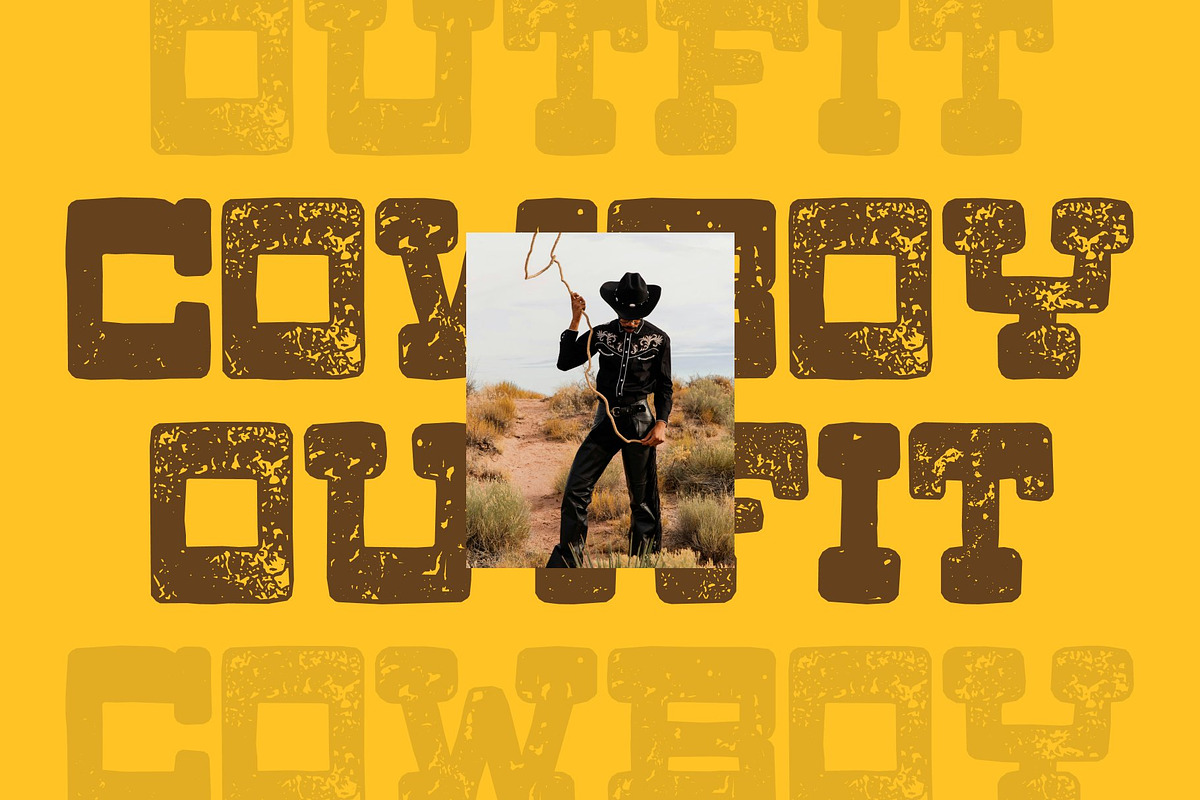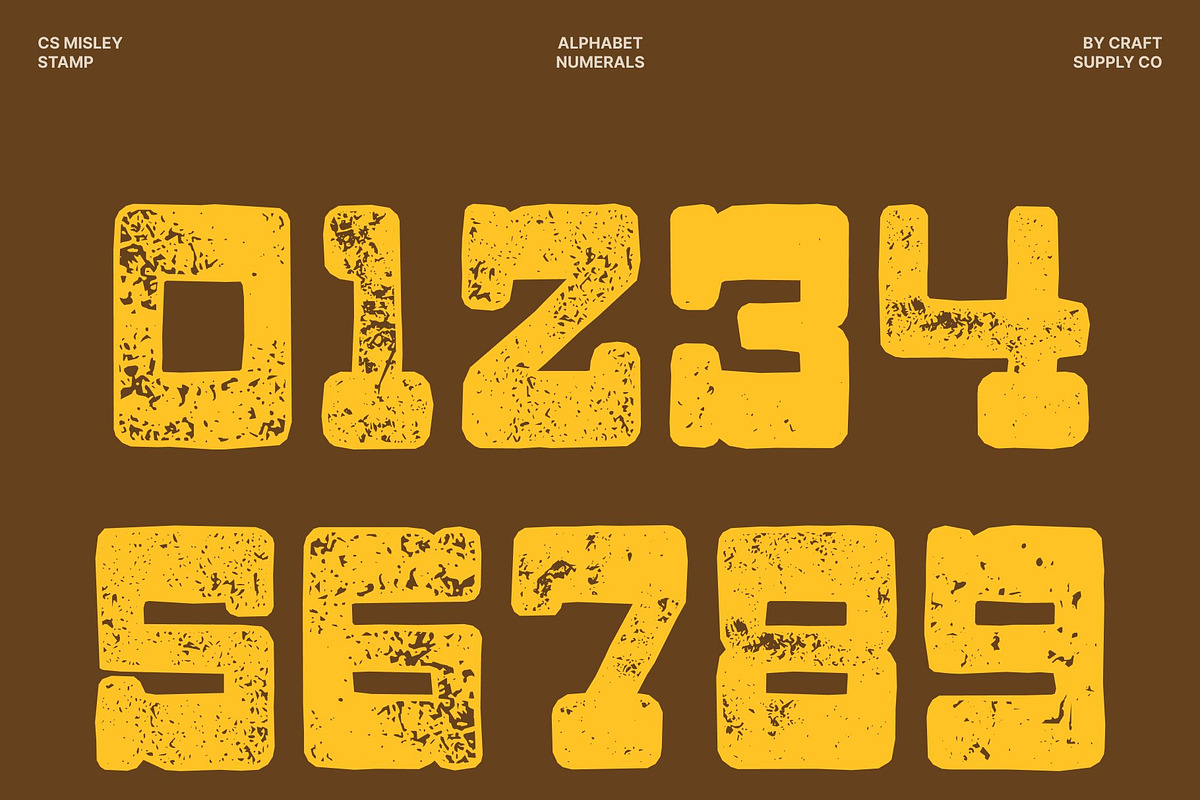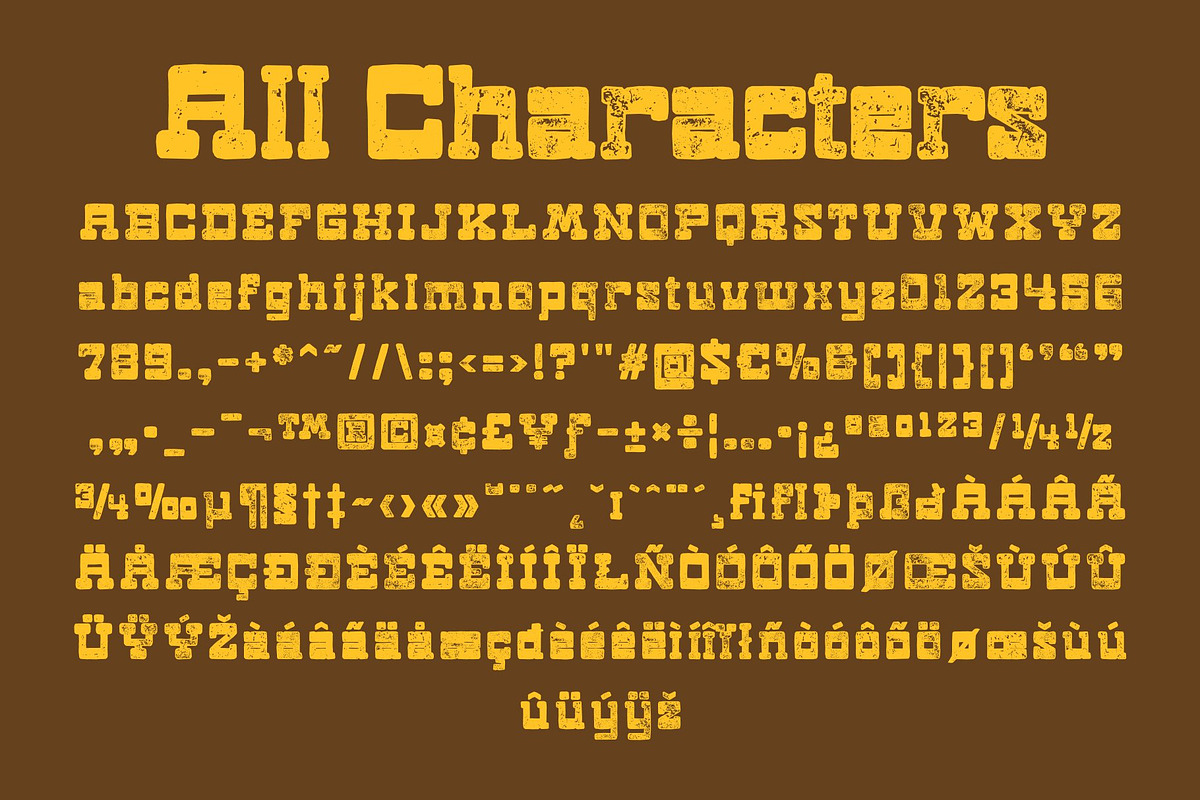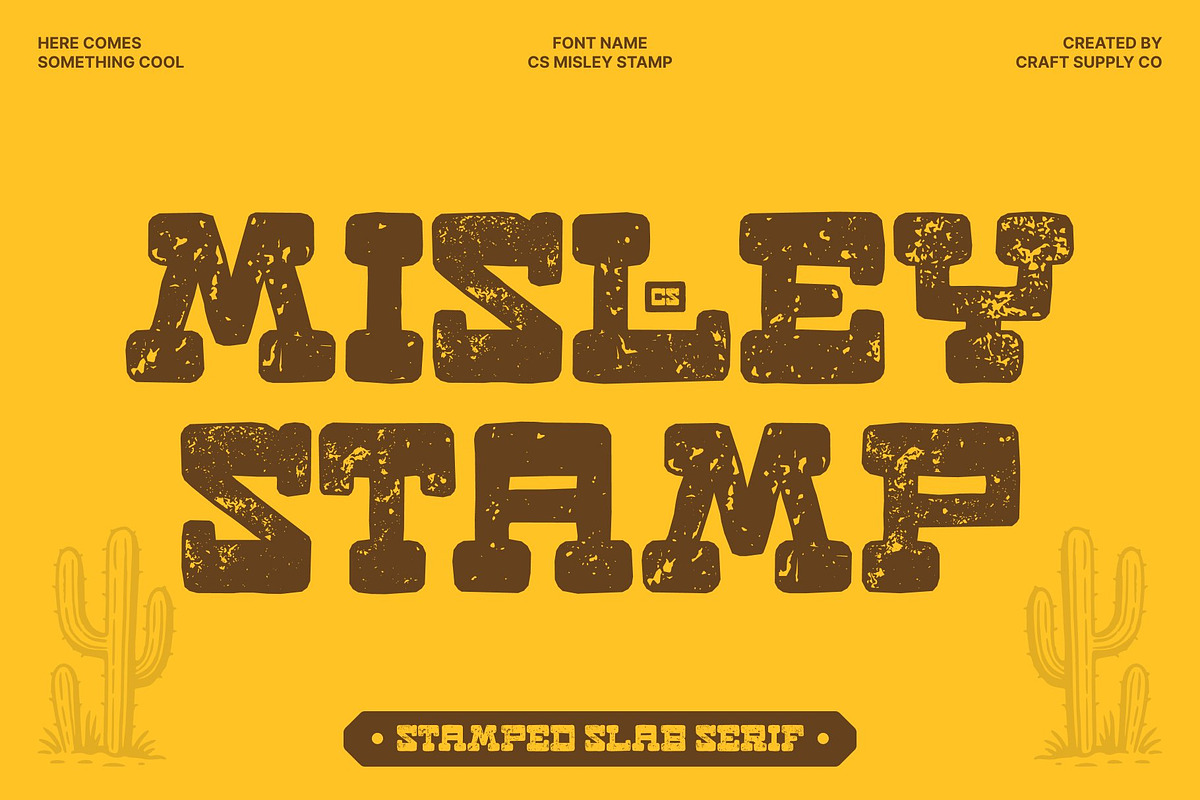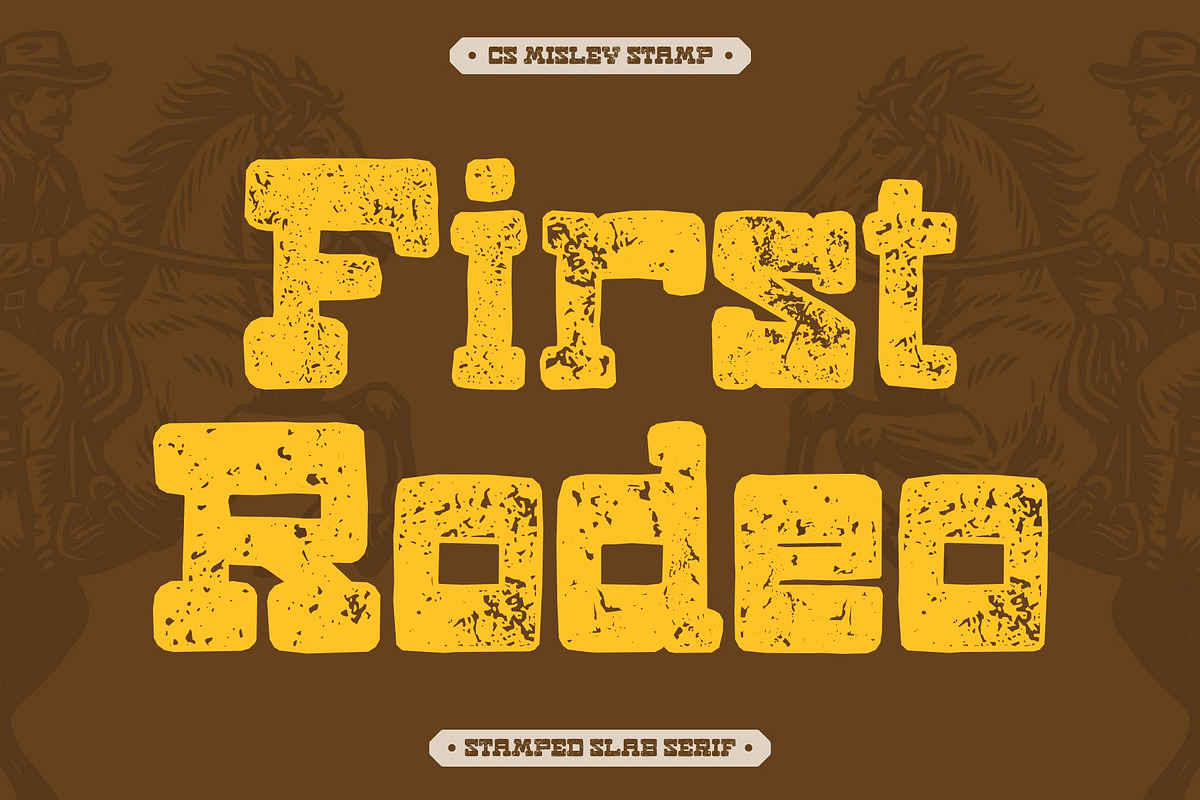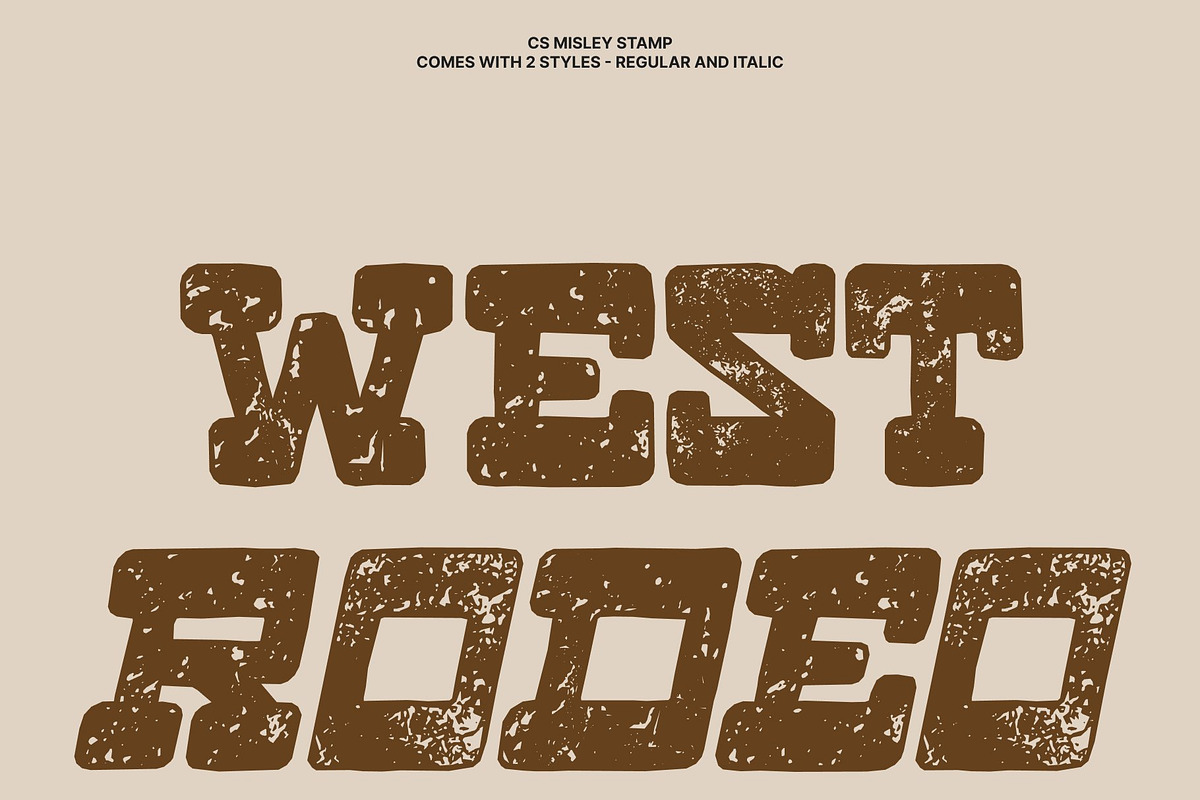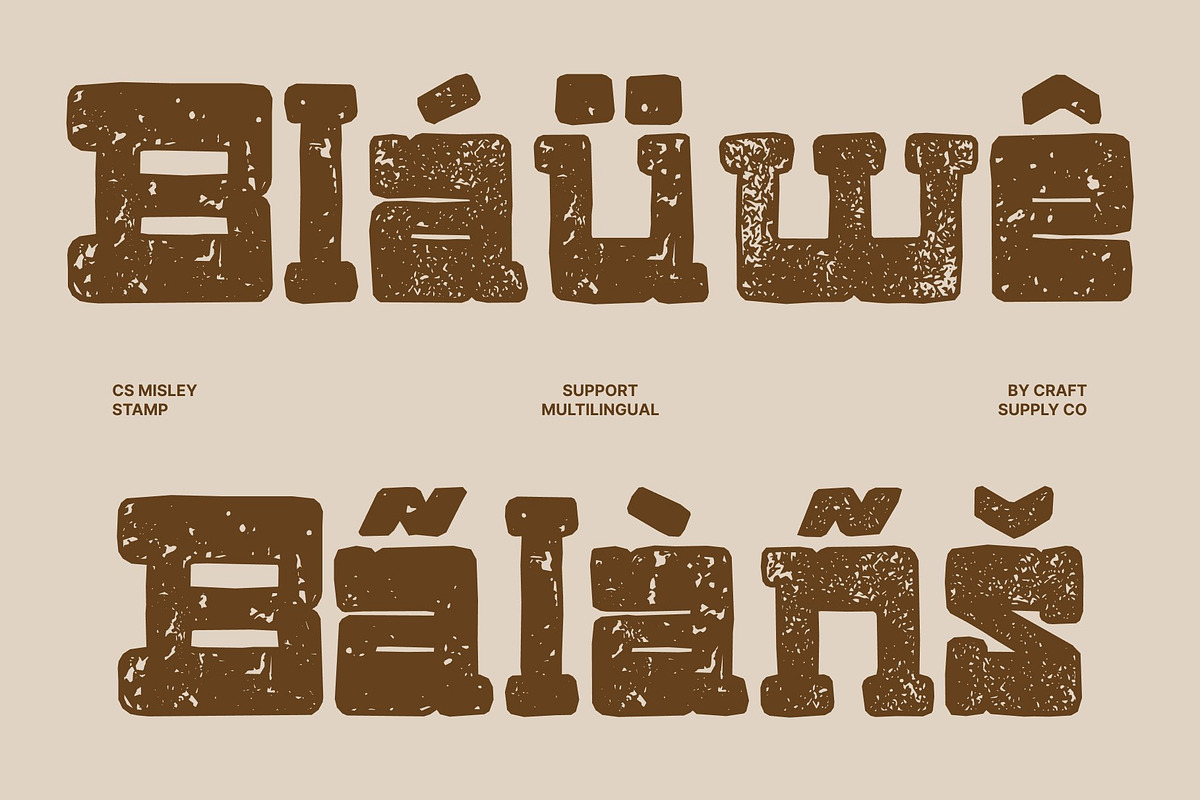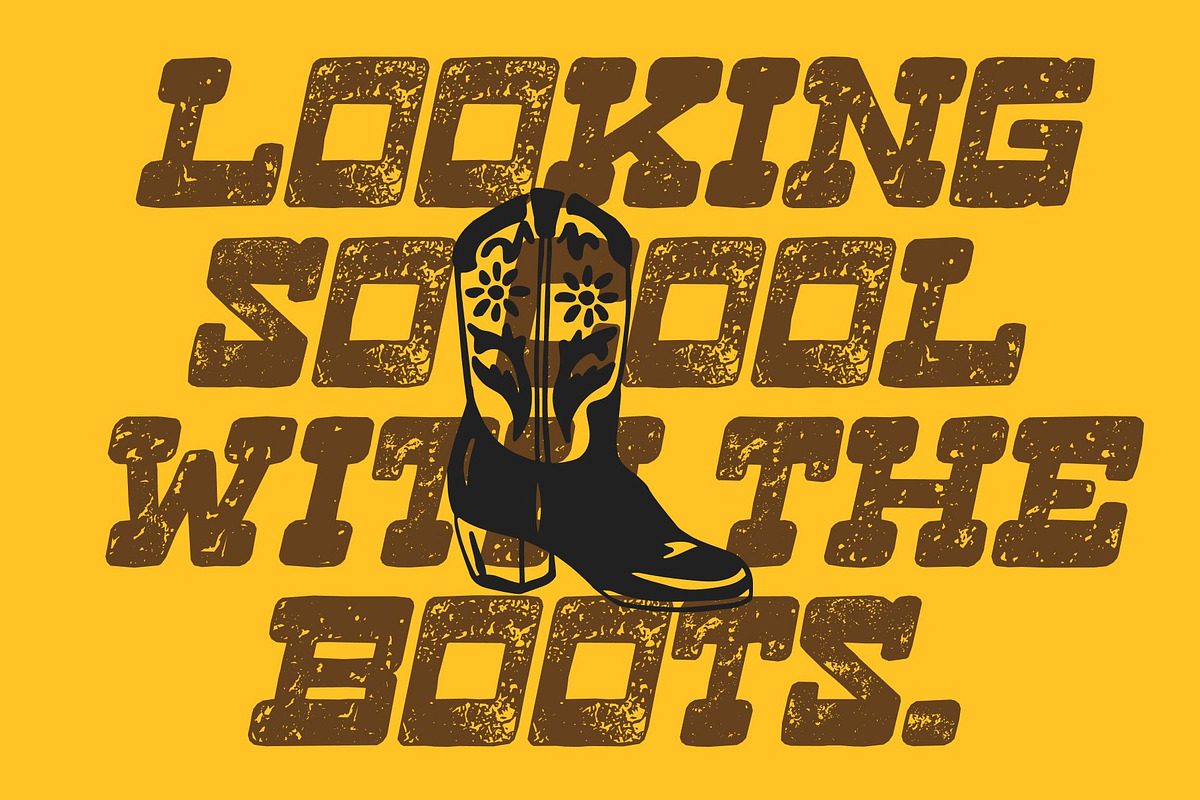
CS Misley Stamp
CS Misley Stamp – Western Display Font with Rugged Frontier Character
Western Slab Display with Vintage Stamp Texture This is a bold display typeface inspired by the raw spirit of the Wild West. Drawing from classic frontier signage, it features slab-like serifs and wide letterforms that evoke cowboy towns, dusty saloons, and hand-painted wooden signs. Enhanced with a distinctive stamp effect, the font gains a vintage character, artistic texture, and worn aesthetic that feels authentically aged and full of personality.
Wide Letterforms with Solid Strength Its wide proportions create a powerful and grounded presence. Each character is constructed with solid strokes and firm slab serifs that enhance readability while reinforcing a tough, hard-wearing appearance. This bold structure delivers strong visual impact, making the font highly effective for headlines and display use where visibility is essential.
Rugged Style with Vintage Western Flair The added stamp texture introduces subtle imperfections that mimic ink prints and weathered surfaces, bringing depth and authenticity to the design. This combination of rugged structure and distressed detail captures the grit and charm of classic western typography, perfect for projects that celebrate heritage, adventure, and craftsmanship.
Perfect for Posters, Branding, and Themed Designs Designed to command attention, this font shines in posters, logos, branding, packaging, signage, and retro-themed visuals. Whether used for cowboy-inspired branding, event promotions, or nostalgic western designs, it delivers a bold frontier atmosphere with a timeless stamped finish.